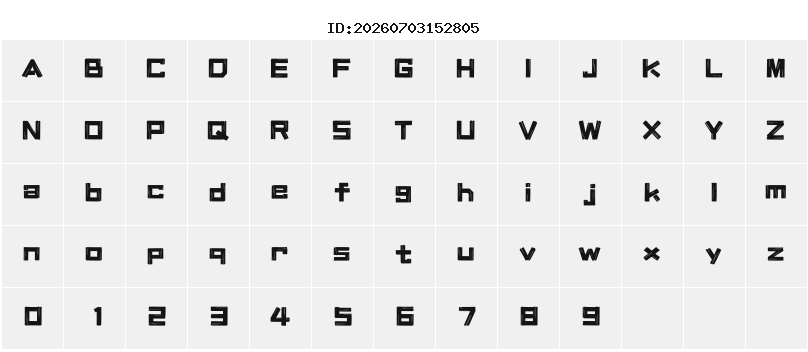
331-上首华木体 Preview
• Font Name: 331-上首华木体
• Font ID: 331-SS Hua Mu Ti:Version 6.00
• Full Font Name: 331-上首华木体
• Version: Version 6.00 May 25, 2024
• PostScript Name: 331-SSHuaMuTi
• Character Count: 7570
• Manufacturer: 上首造字
About 331-上首华木体.ttf
331-上首华木体.ttf is a modern, elegant sans-serif font designed for ultimate readability and visual harmony. Perfect for branding, headlines, web design, and print materials.